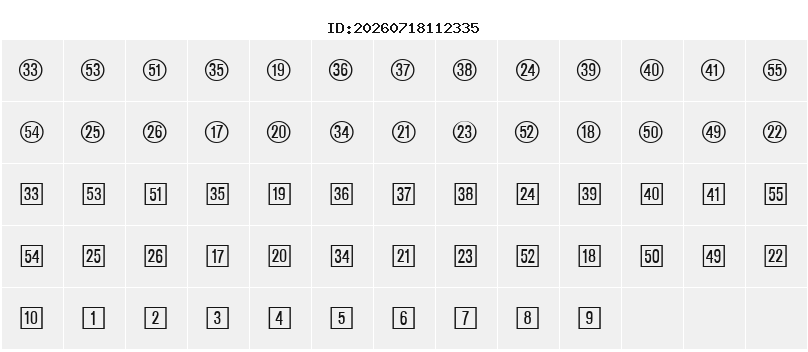
About CatalogNumbers.ttf
CatalogNumbers.ttf is a modern, elegant sans-serif font designed for ultimate readability and visual harmony. Perfect for branding, headlines, web design, and print materials.